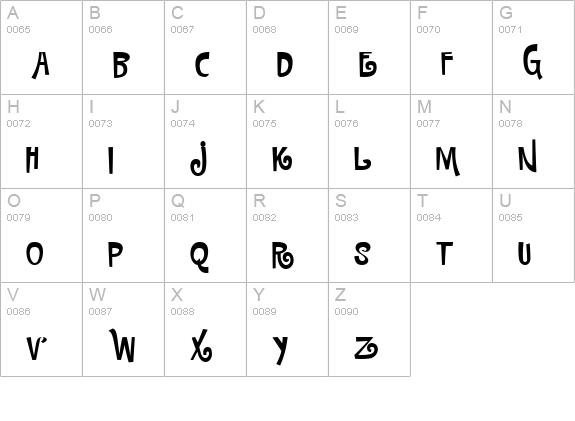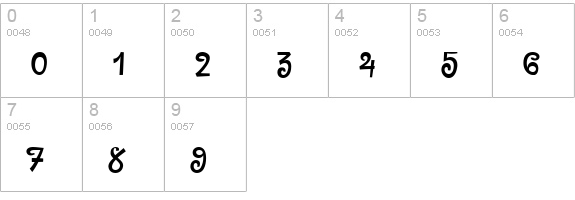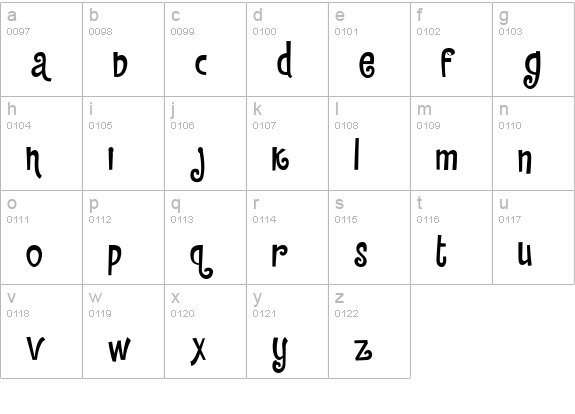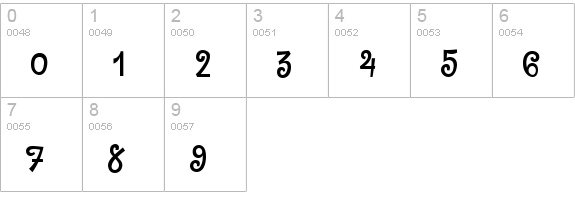
Countryhouse Medium is a balanced, medium-weight variant in the Countryhouse typeface family \xE2\x80\x94 well suited to sub-headlines, navigation, and balanced editorial work.
Countryhouse Medium font is a charming and versatile typeface that exudes a rustic elegance perfect for a variety of design projects. Its clean lines and classic style make it a great choice for branding, invitations, signage, and more. The medium weight of the font strikes the perfect balance between readability and character, making it suitable for both headers and body text. What sets Countryhouse Medium font apart is that it is available for free download at FontsMarket.com. This means you can easily access this high-quality font without any cost, adding a touch of sophistication to your projects without breaking the bank. So why wait? Enhance your designs with the timeless appeal of Countryhouse Medium font today!